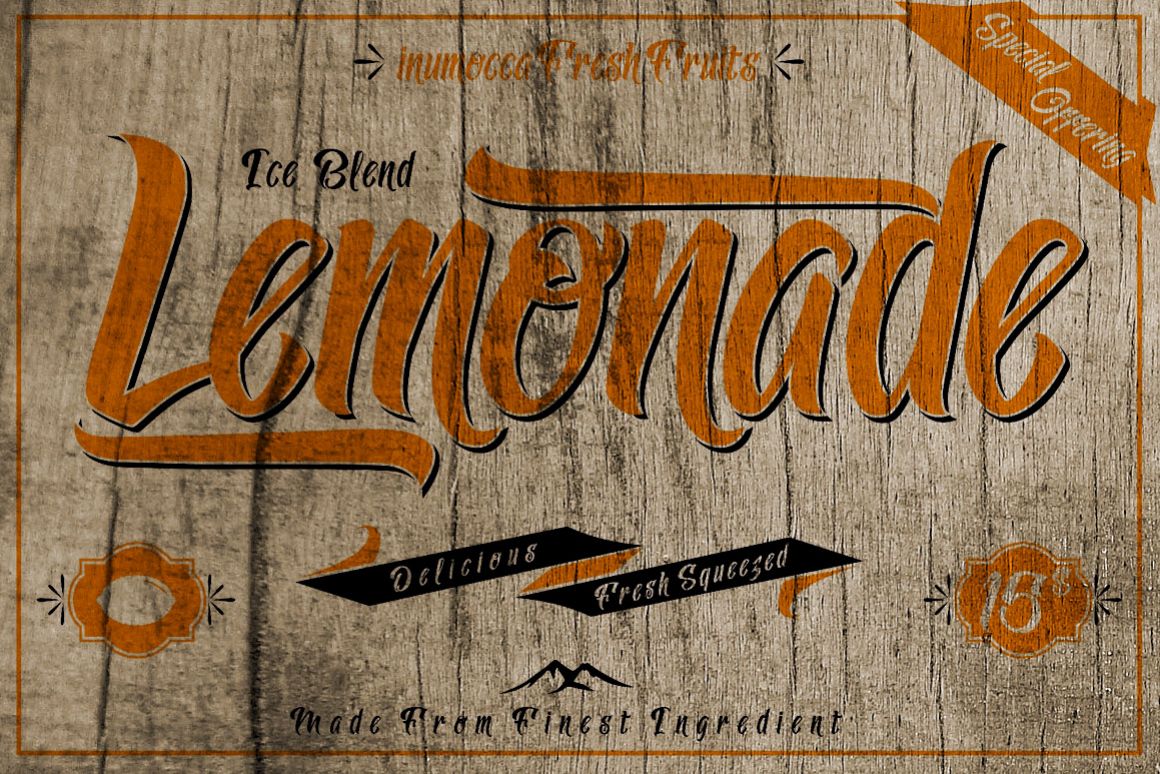
Lemonade Typeface with 5 Badges Bonus
Lemonade
font inspired from vintage style of packaging
its really great font for your band, company, label,
clothing company, vintage or classic stuff, etc
Love this font!
A bit too tight in the kerning makes legibility difficult.